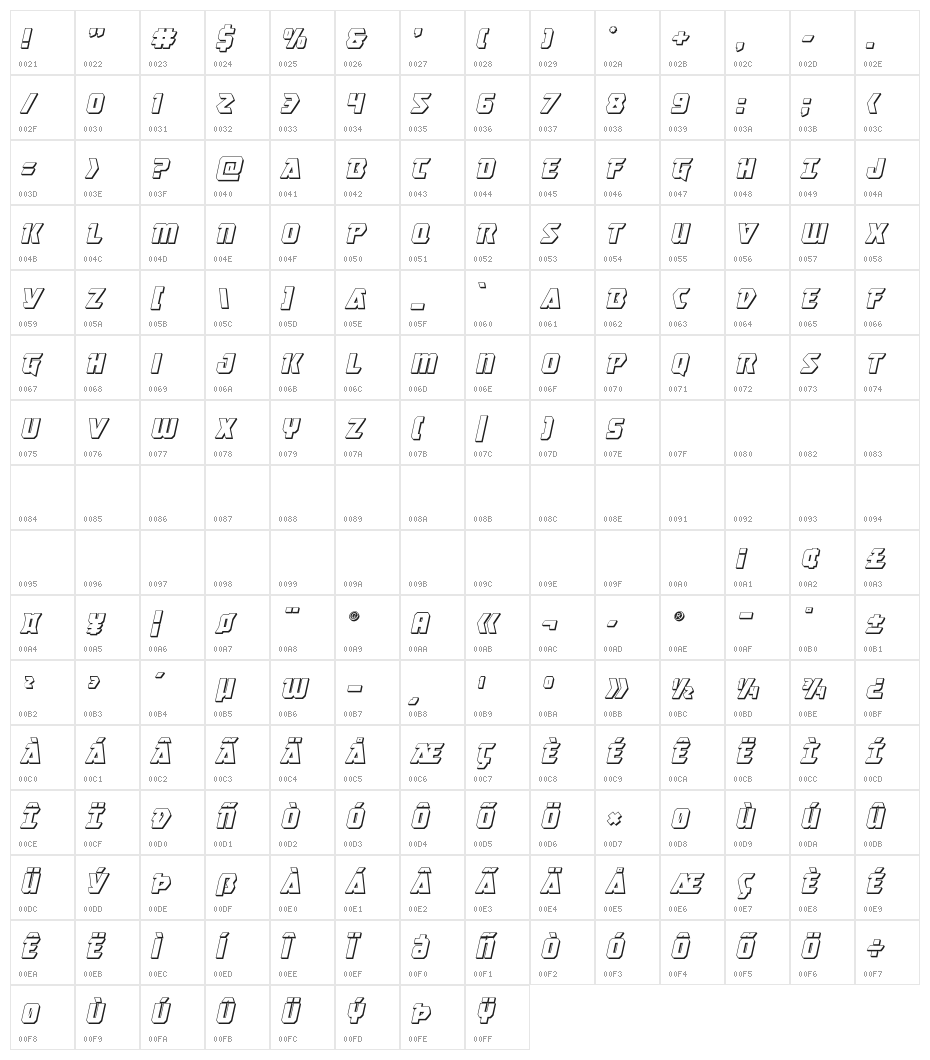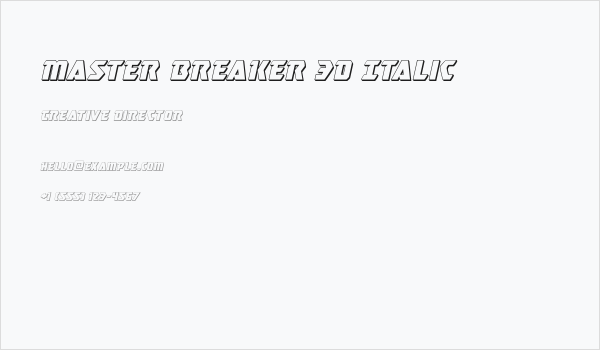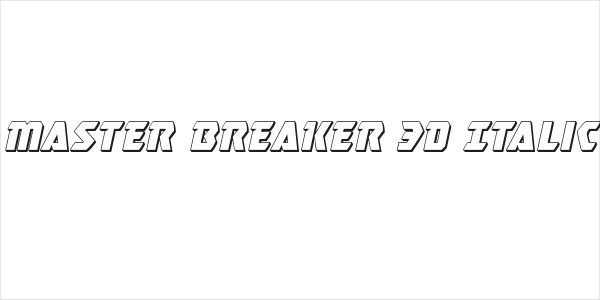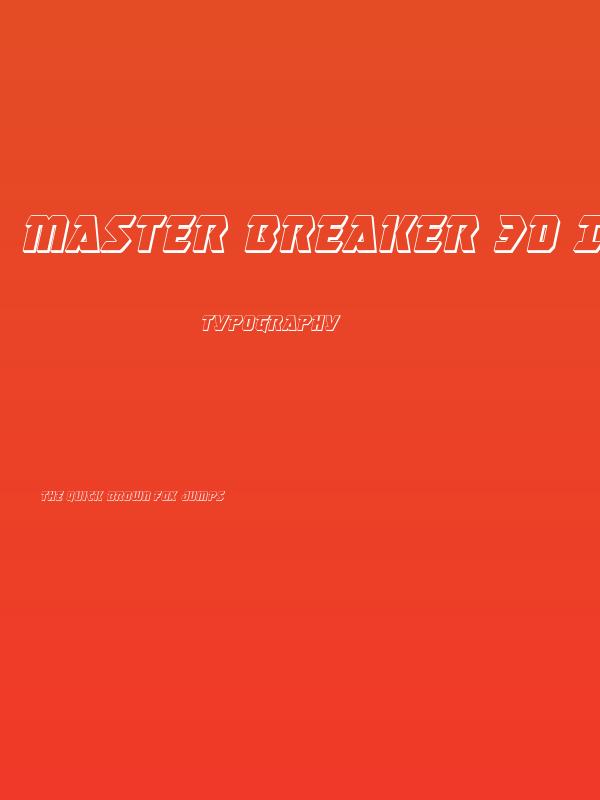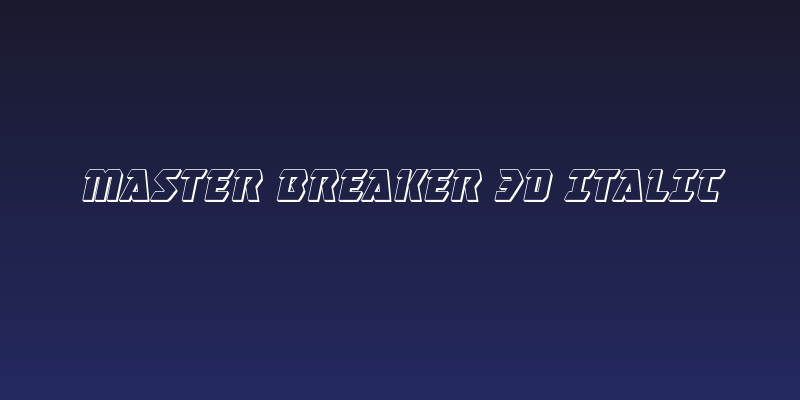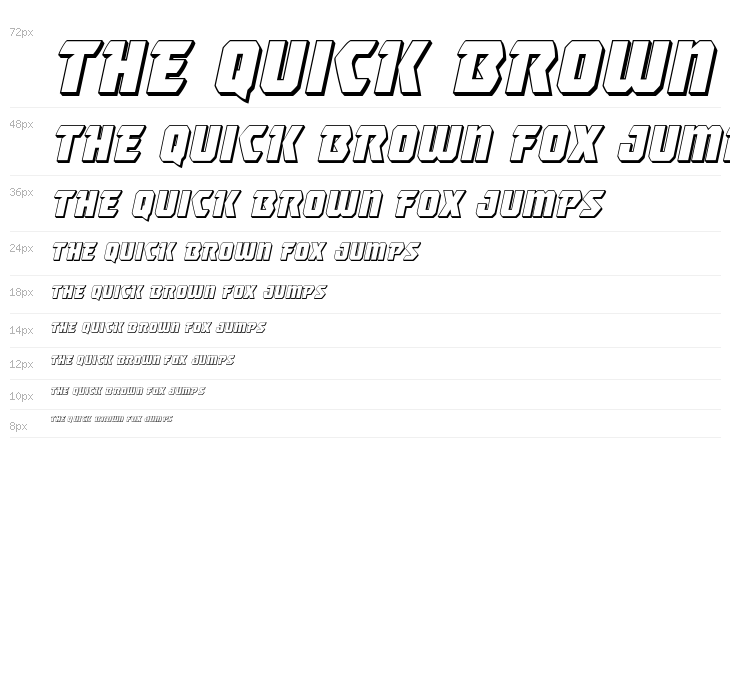
Master Breaker 3D Italic Font
Master Breaker 3D Italic Description
This font features a bold, three-dimensional design with a strong italic slant, giving it a dynamic and futuristic appearance. The characters are outlined, adding depth and a sense of movement. Each letter and number is constructed with sharp angles and clean lines, creating a striking visual impact. The font's style is reminiscent of digital or sci-fi themes, making it suitable for projects that require a modern and edgy look. The special characters maintain the same bold and angular style, ensuring consistency across all glyphs.
| Proposed Projects | Ideal for video game titles, sci-fi movie posters, tech branding, and digital artwork. |